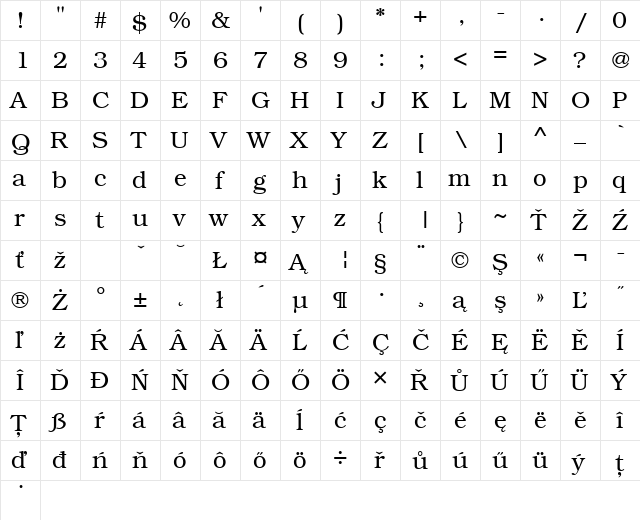
BookmanItcLEE Regular
Design Context for BookmanItcLEE Typeface
BookmanItcLEE takes a measured approach to typography — its balanced proportions and neutral character make it a reliable workhorse for both digital and print work.